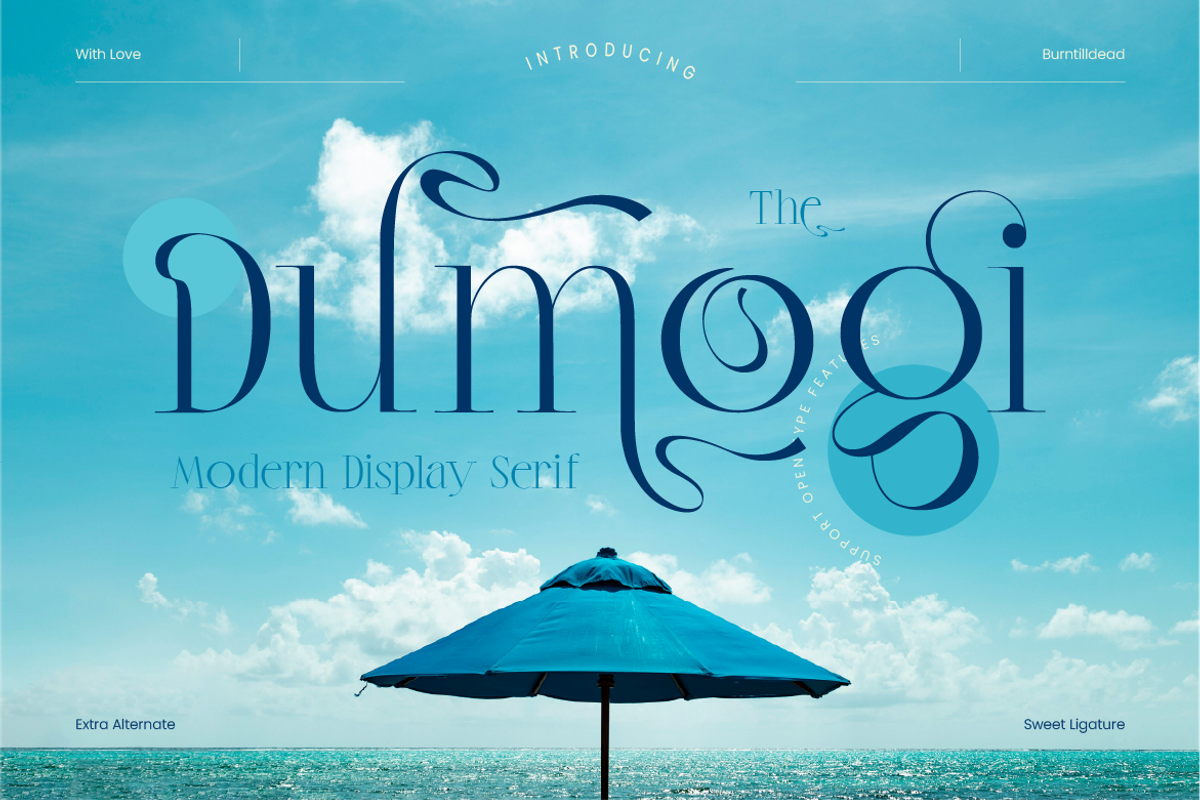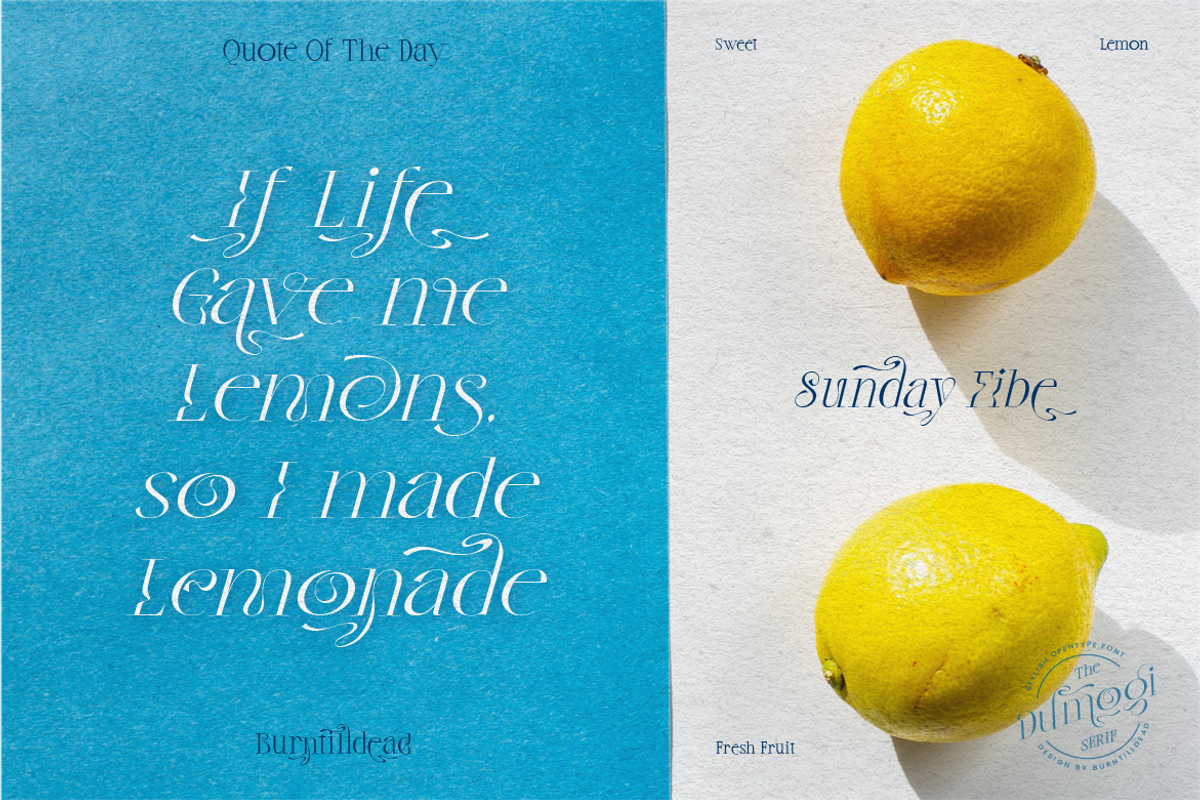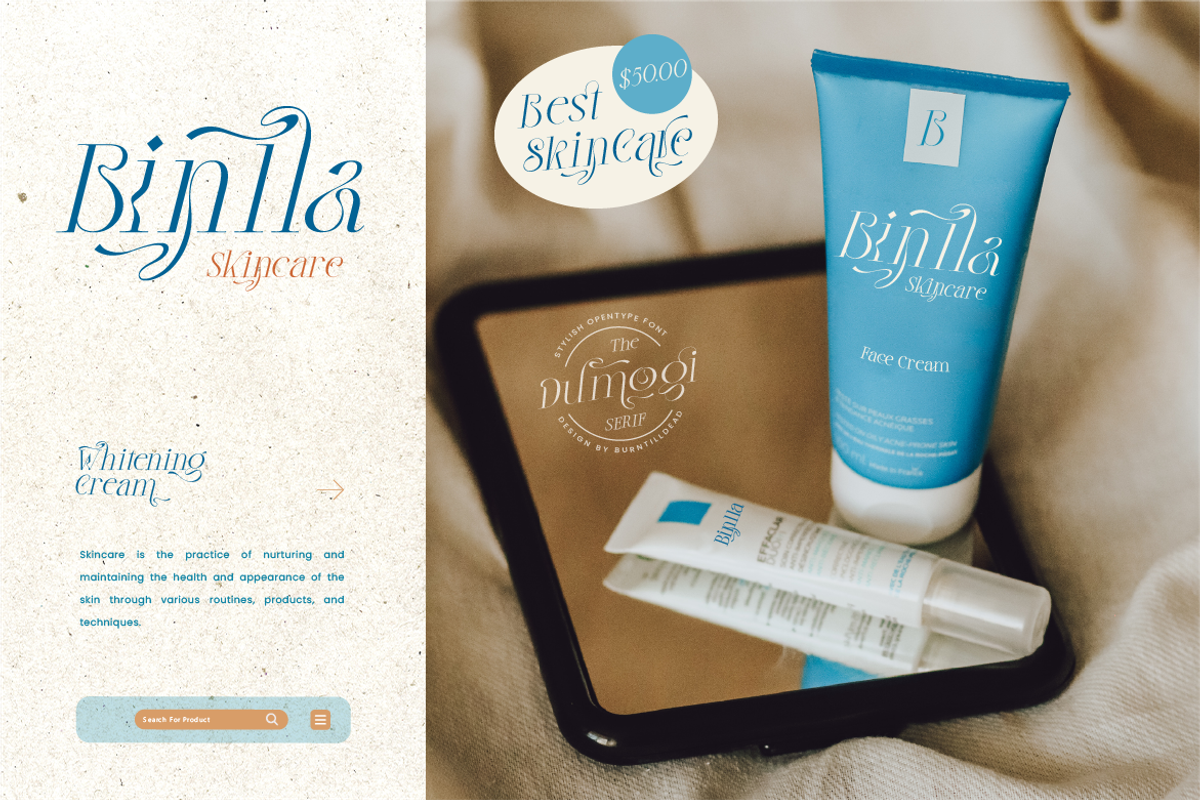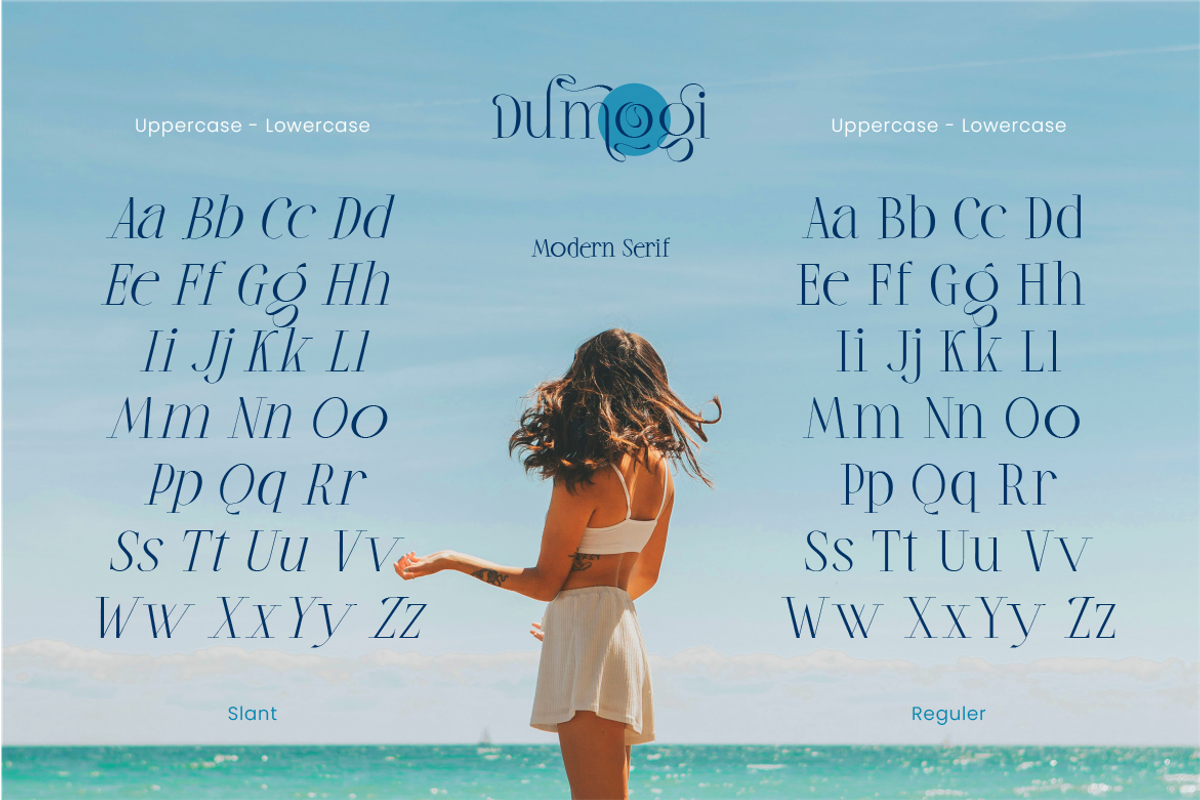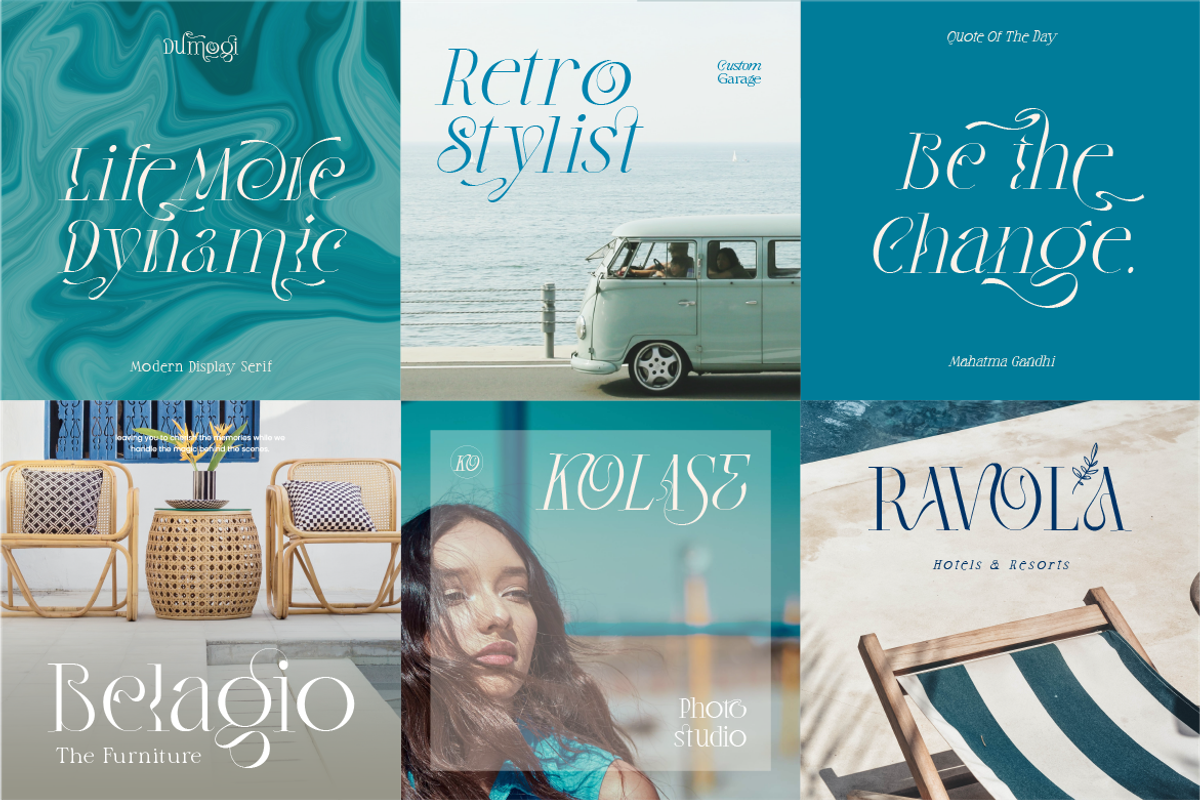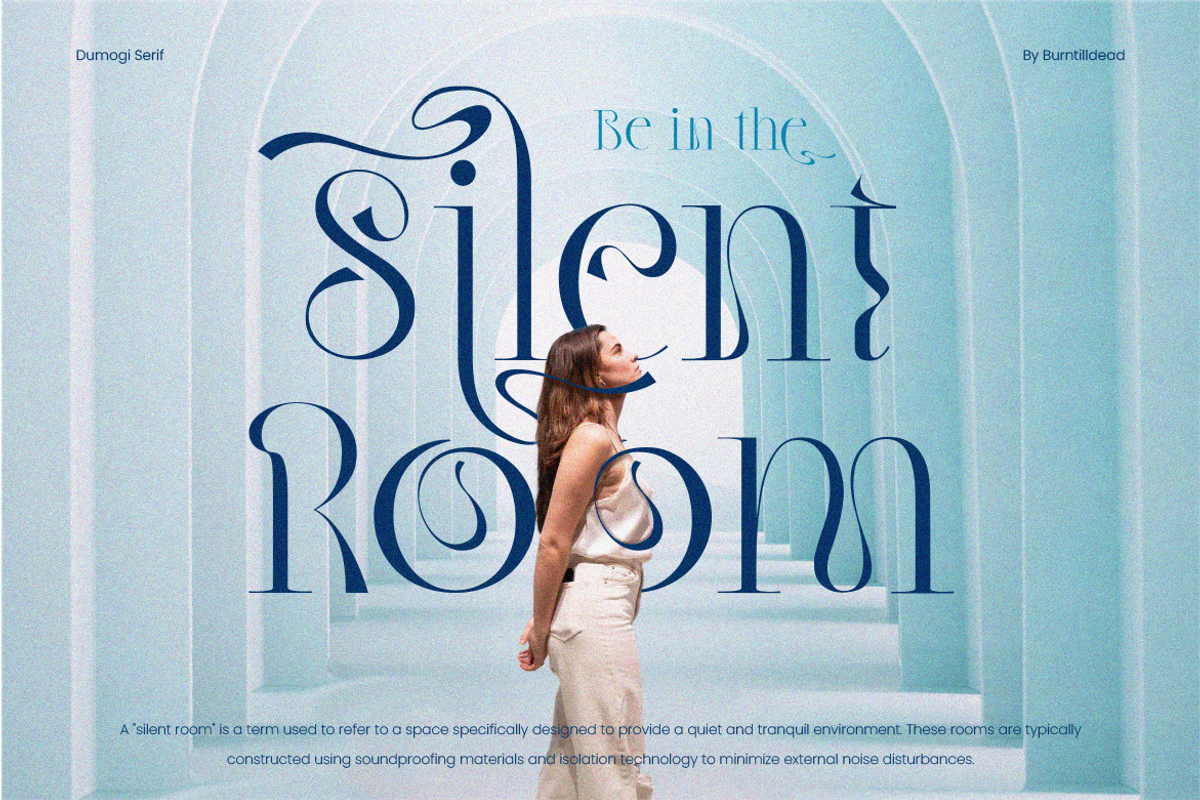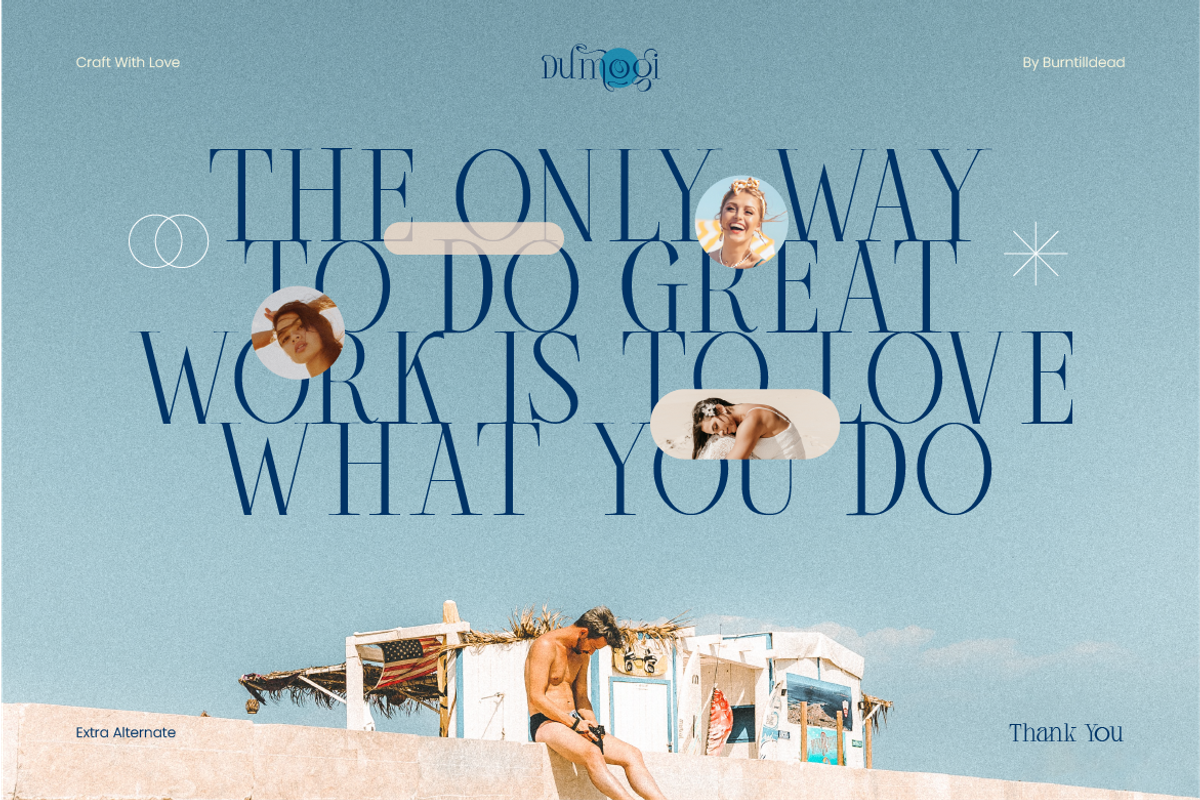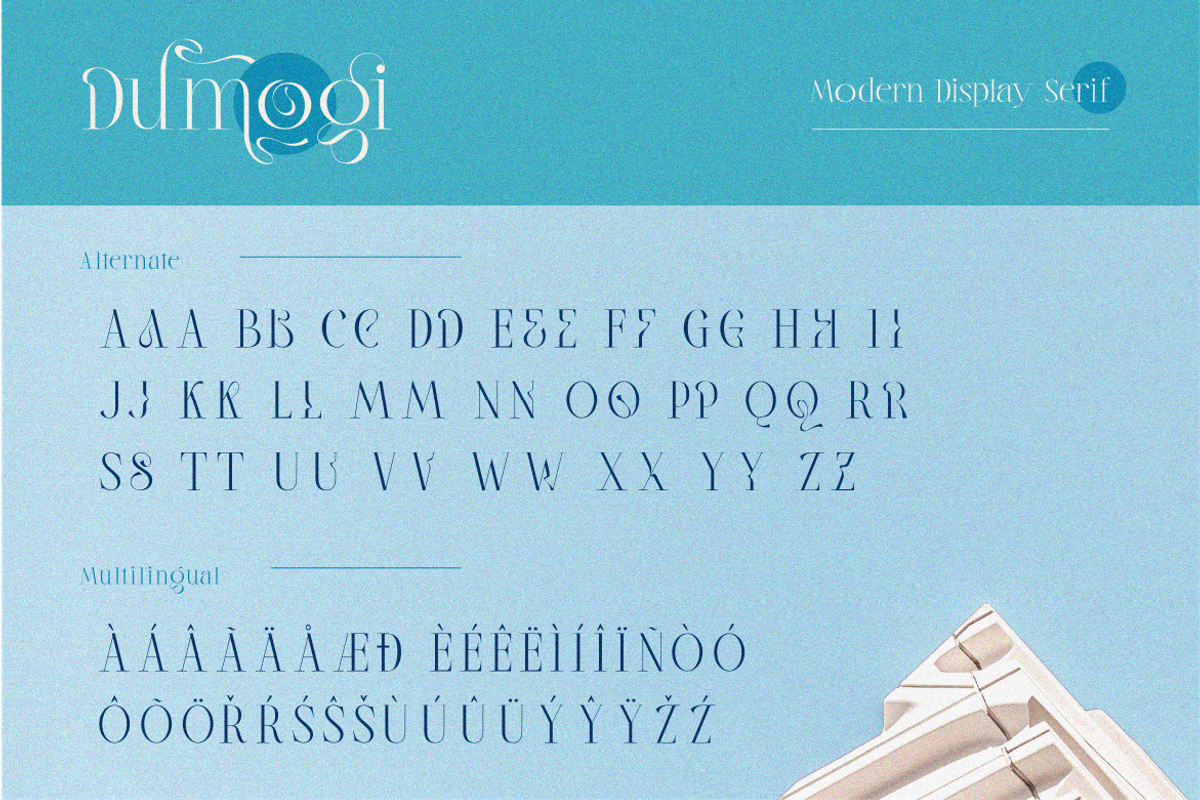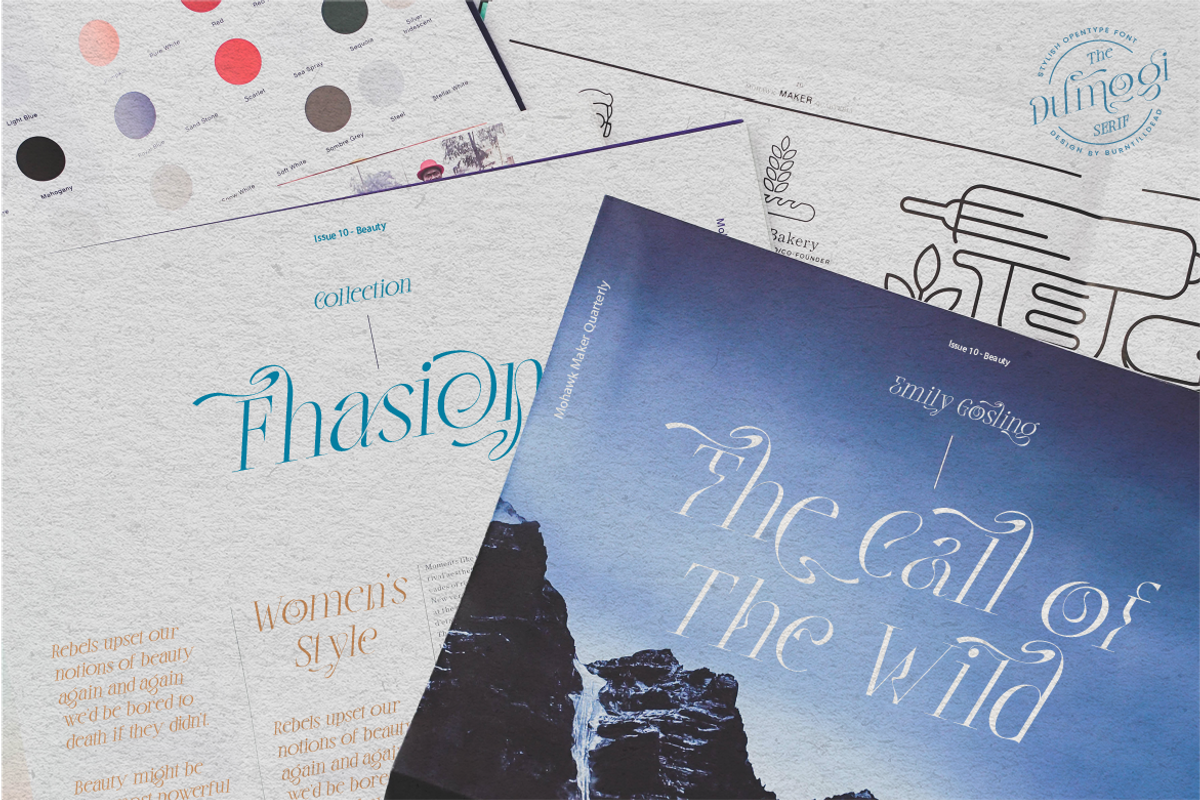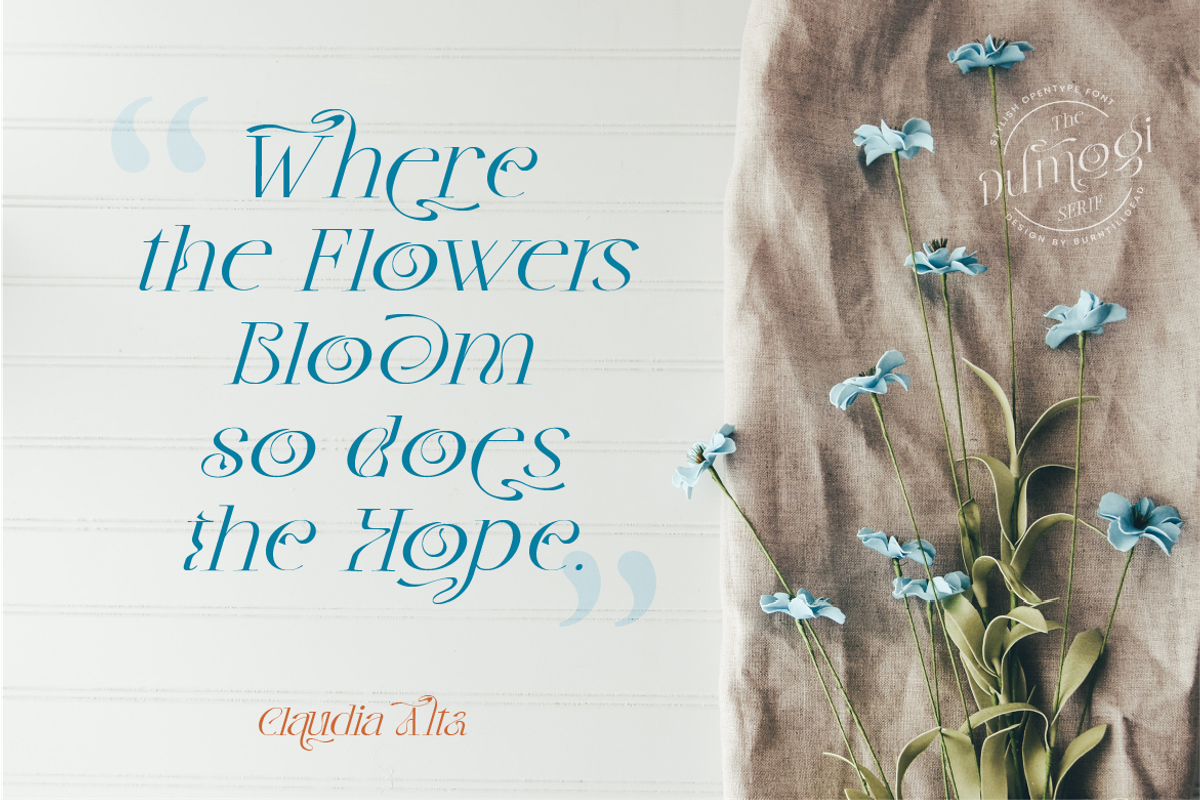
Dumogi
Say Hello to Dumogi font; A modern stylish font. Made to bring elegant, classy and unique looks for your design project.
This kind serif style is really easy to applied in many media. yea you know what i mean.... this style is been used by decade to re-present prestigious looks.... also with "Dumogi" font, you can easily bring a good mood in to the design by adding alternate characters. No need extra software!!! You can easy to use the alternate characters by open the Characters Map (PDF), copy the alternate character you want to use and pasting in to your text. It's magic wright!
Dumogi font contains of 428 glyphs with many unique and interesting alternative options.